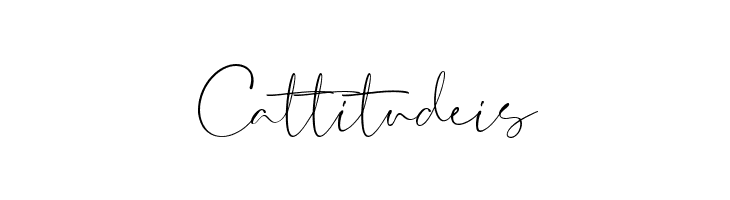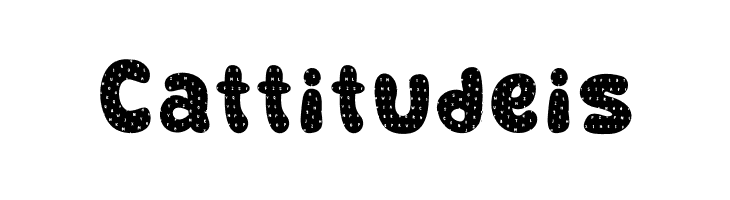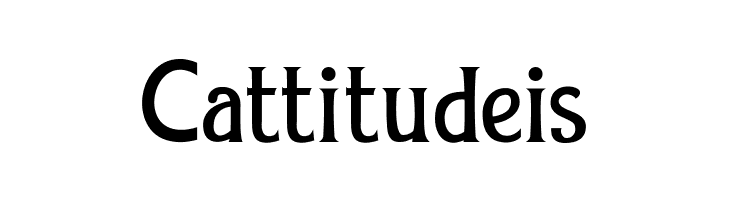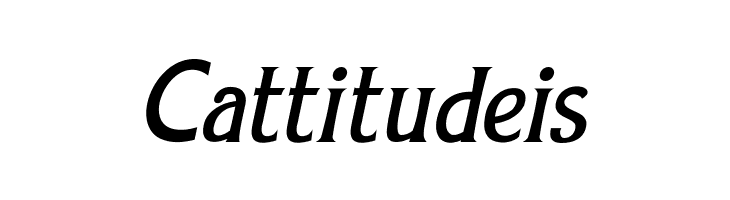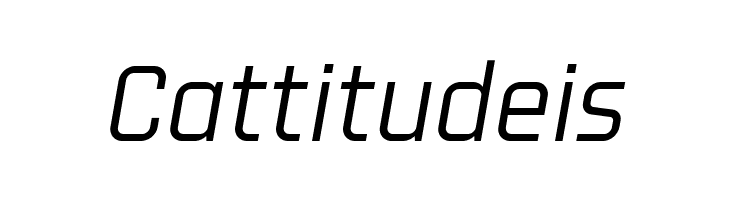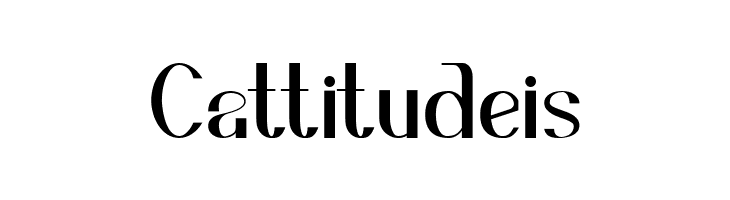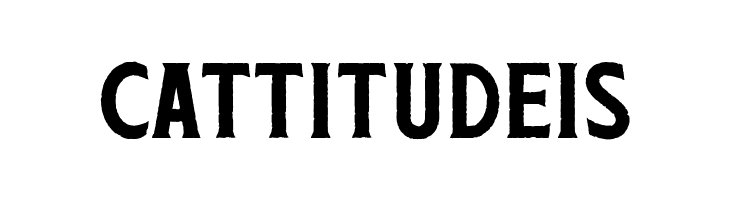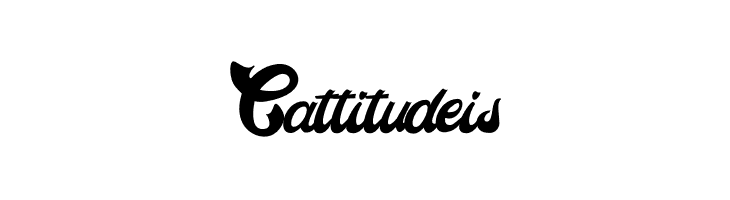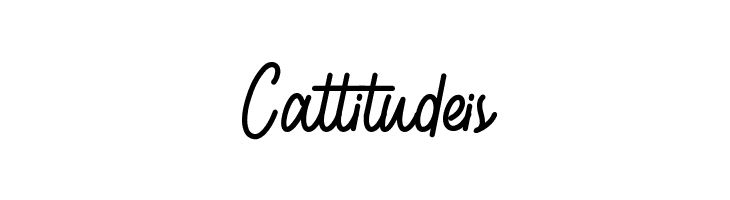
An elegant and decorative font with whimsical curves and intricate details.
An elegant, flowing script font with ornate uppercase and smooth lowercase letters.
A bold, distressed font with a vintage, textured appearance.
A flowing, cursive script font with elegant loops and a handwritten feel.
A bold, rough-textured font with a vintage, handcrafted appearance.
A bold, retro-inspired font with rounded, playful letterforms.
A bold, condensed retro sans-serif display font with rounded edges.
High-contrast, elegant serif with refined, decorative details.
A bold, retro-inspired font with a three-dimensional line effect.
A bold, retro-style font with lined characters and a vintage flair.
A retro, geometric font with double-line outlines and sharp angles.
A bold, playful retro font with bubbly, rounded shapes and a vintage feel.
A bold, retro-inspired font with thick, blocky characters and a playful design.
A bold, retro-inspired font with a playful shadow effect.
A bold, playful font with rounded, bulbous letterforms and a retro vibe.
An elegant and decorative script font with flowing, cursive letterforms.
A bold, textured font with a playful dotted pattern, ideal for decorative use.
A bold, retro-style font with geometric shapes and a nostalgic feel.
A bold, decorative script font with vintage flair and high contrast strokes.
A bold, expressive script font with flowing, cursive letterforms and high contrast.
A flowing, cursive font with elegant, connected characters.
A playful, retro-inspired script font with flowing, interconnected letters.
A distressed, grunge-style font with a bold, stencil-like appearance.
A bold, geometric sans-serif font with a modern and clean design.
A bold, geometric font with sharp angles and tight spacing, perfect for impactful designs.
A bold, italic font with a modern and dynamic style.
A modern, high-contrast font with elegant and stylish design elements.
A modern, italic font with a sleek and dynamic design.
A modern, geometric sans-serif font with a clean and balanced design.
A modern, geometric typeface with uniform strokes and a clean, professional appearance.
A modern, semi-bold italic font with a sleek and dynamic style.